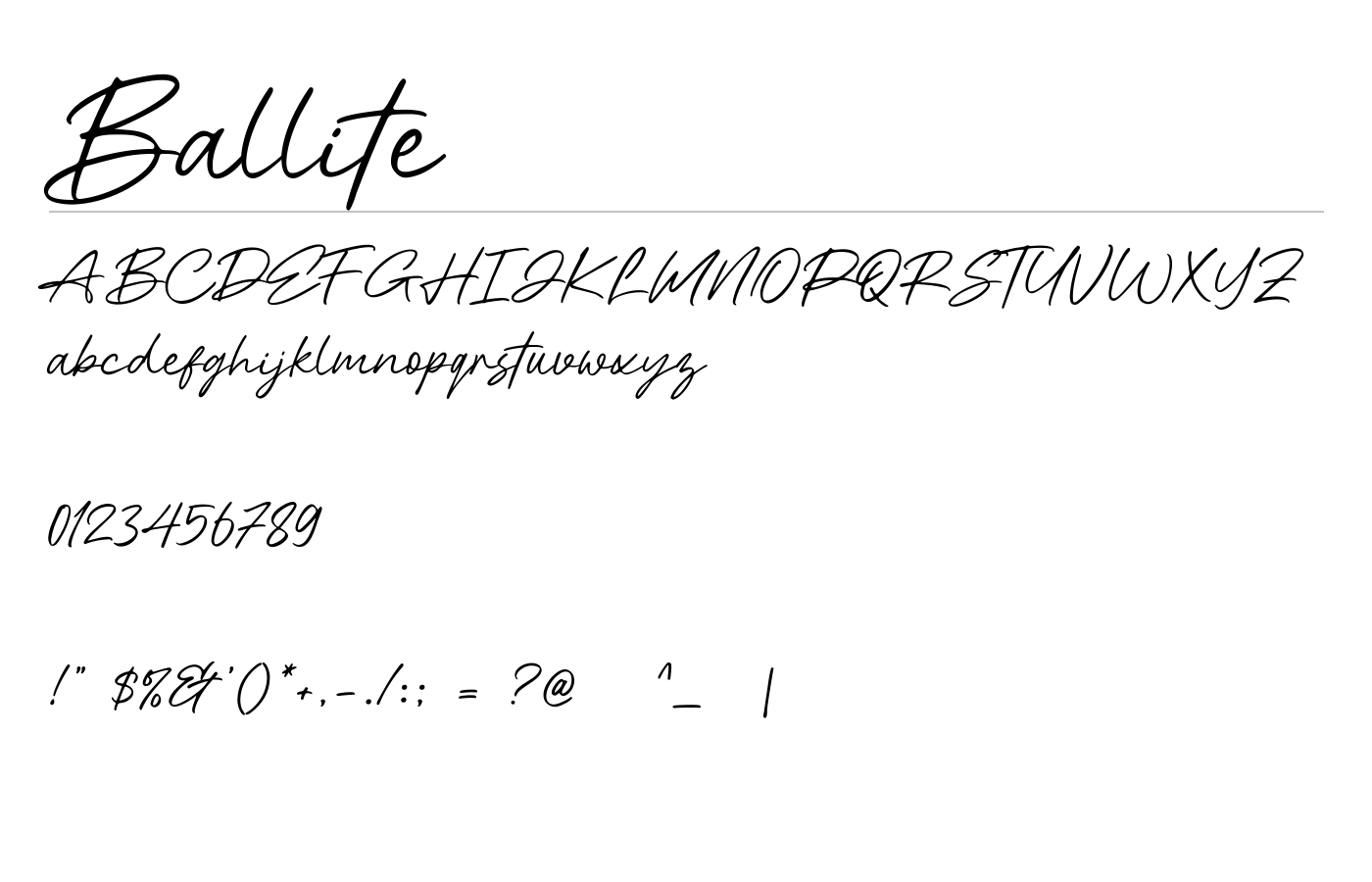
Ballite is a delicate and flowing script font with a handwritten feel that exudes elegance and personal charm. Its slender, slightly slanted letterforms and smooth connections make it perfect for invitations, branding, and creative projects where a touch of sophistication and warmth is desired. This font works beautifully in designs that call for a refined yet approachable style, adding a graceful and intimate touch.
Ballite Font
About Ballite Font